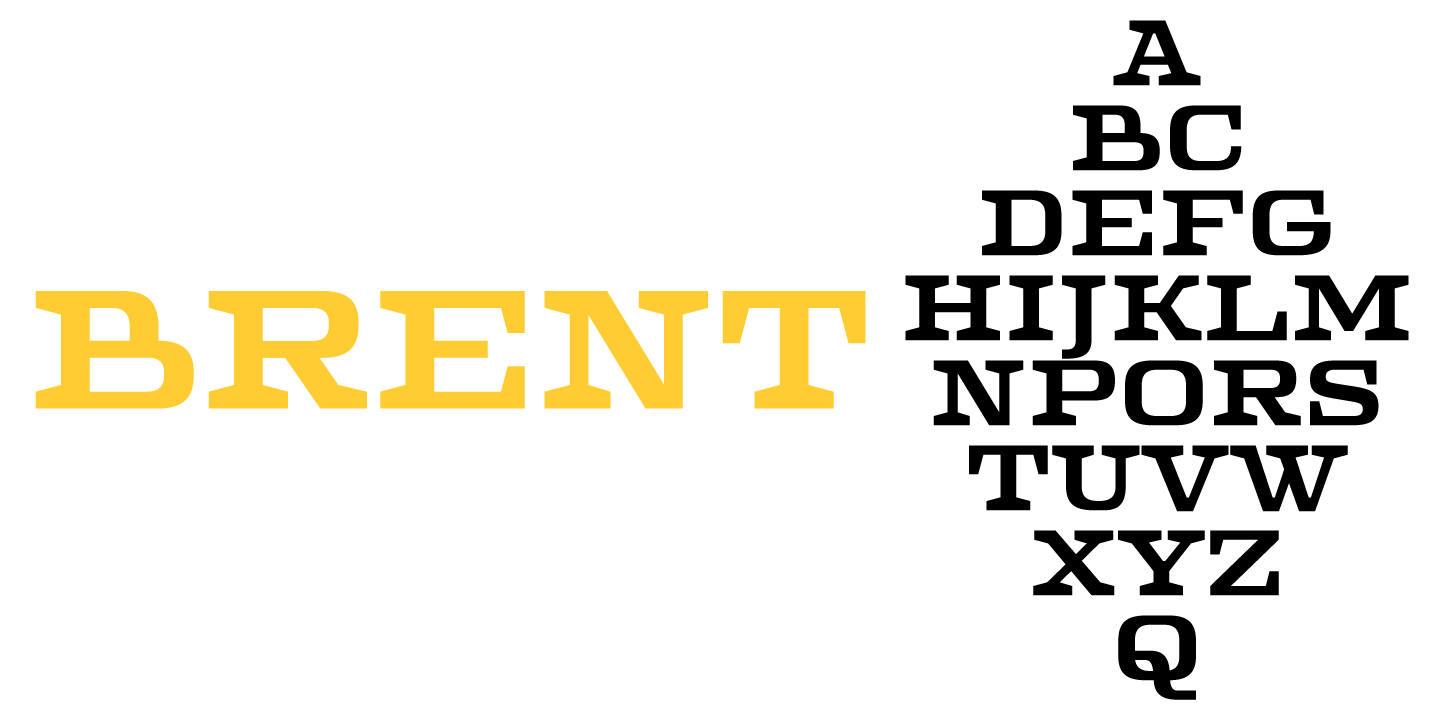
Brent 4F Font is perfect for editorial magazines, modern book layouts, contemporary corporate branding, clean website designs, minimalist packaging, professional presentations, sophisticated signage systems, and streamlined communication materials.
What makes Brent 4F Font exciting is its perfect balance of contemporary clarity and timeless elegance that delivers exceptional readability across all modern applications. The refined letterforms and optimized spacing create an atmosphere of professional sophistication while maintaining approachable accessibility for diverse audiences.
Brent 4F Font family includes thin, light, regular, medium, bold, and black weights, each available in regular and italic styles, plus extended character sets and multilingual support for comprehensive international typography systems.
Achieve editorial excellence with Brent 4F Font Free Download, the definitive choice for publications demanding the highest standards of typographic sophistication. This versatile typeface embodies contemporary design principles through letterforms that seem crafted for the pages of leading magazines and the screens of cutting-edge digital platforms. The expertly balanced characters feature optimized proportions that ensure outstanding legibility while projecting the kind of professional authority that distinguishes premium publications from ordinary content. Editorial professionals and brand consultants consistently select this font for projects requiring the perfect synthesis of readability and style that modern communication demands. Its comprehensive weight system provides unlimited flexibility for creating cohesive editorial hierarchies while maintaining consistent elegance throughout complex publication layouts. Experience the refined power of contemporary typography that transforms standard editorial materials into expressions of publishing excellence, establishing your publication as a leader in today's competitive media landscape where clarity and sophistication determine reader engagement and brand credibility.